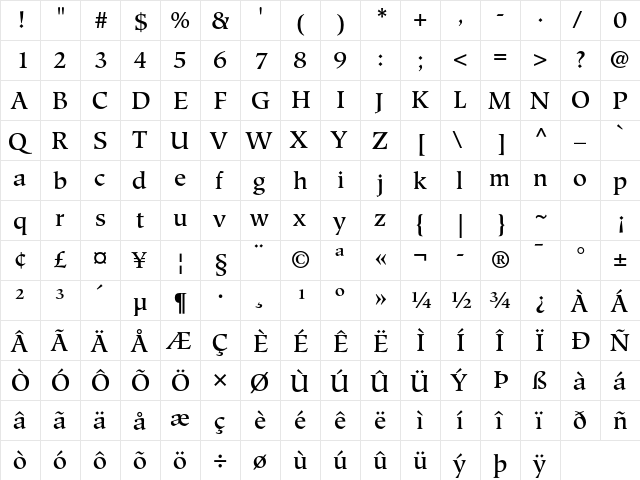
Hiroshige Std Medium
| Designer | Cynthia Hollandsworth |
Design Context for Hiroshige Std Typeface
Hiroshige Std takes a measured approach to typography — its balanced proportions and neutral character make it a reliable workhorse for both digital and print work.